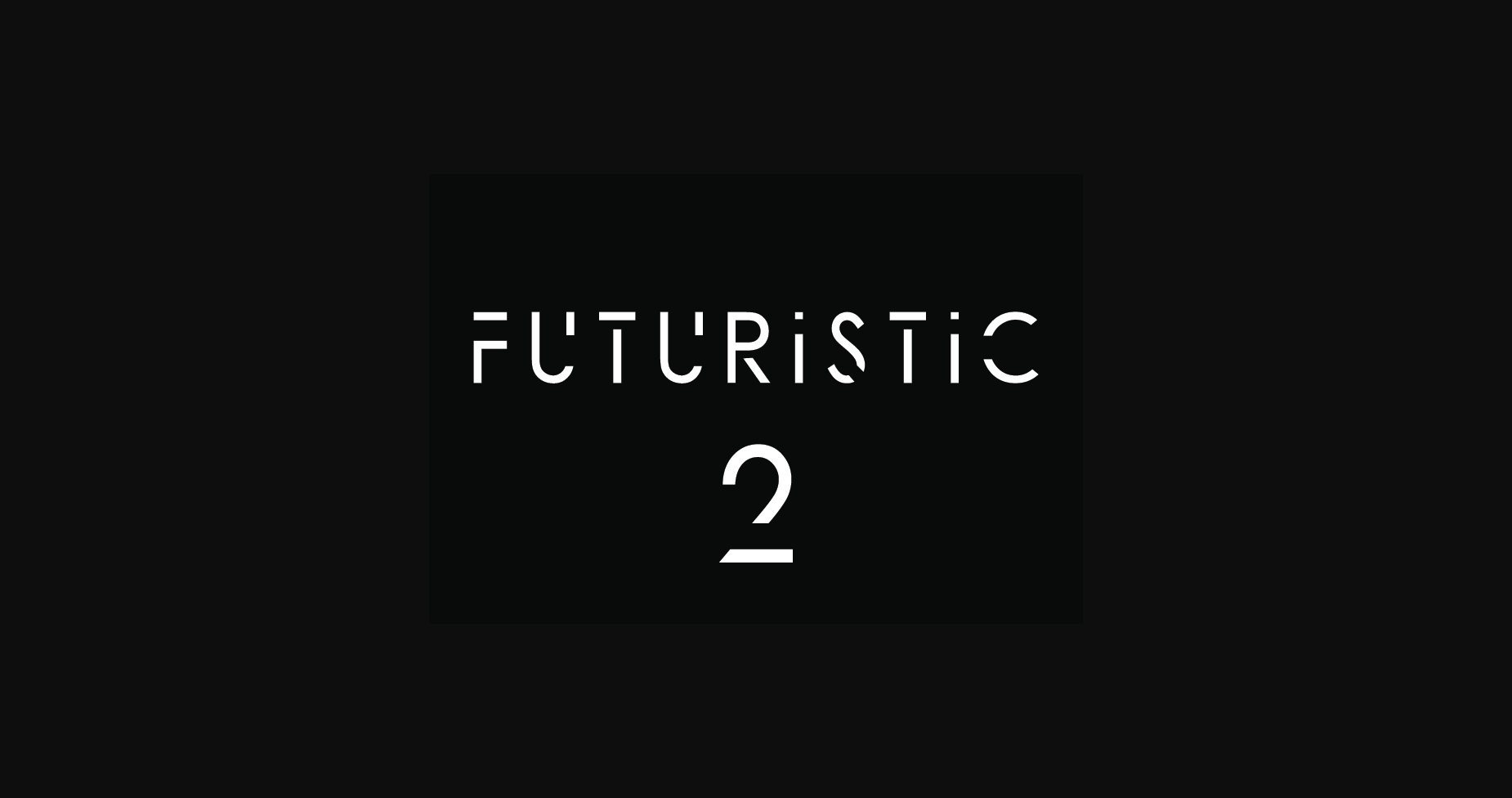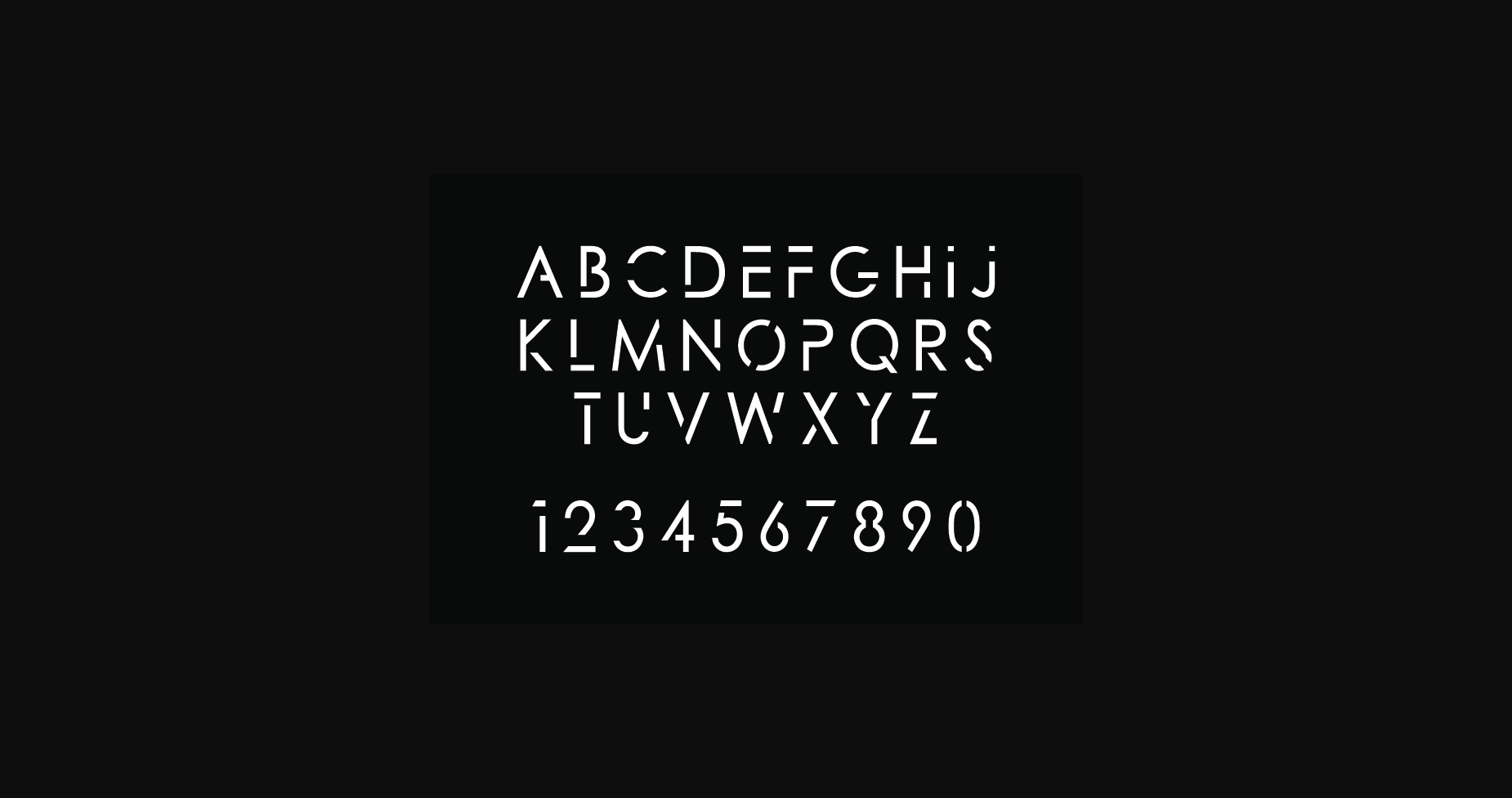
About Futuristic 2 Font
Futuristic 2 is a cool and modern updated Sans Serif font. Add it confidently to your creative projects and notice how it makes them stand out from the crowd.